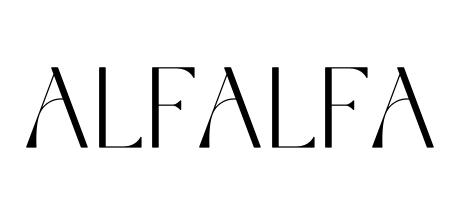
Alfalfa
Alfalfa, a font of elegant simplicity, whispers sophistication. Its clean lines and subtle serifs evoke a sense of understated grace. Each letter, meticulously crafted, dances across the page with a delicate rhythm, perfect for conveying a message of refined style and quiet confidence. Its versatility makes it equally at home in a formal invitation or a modern logo.